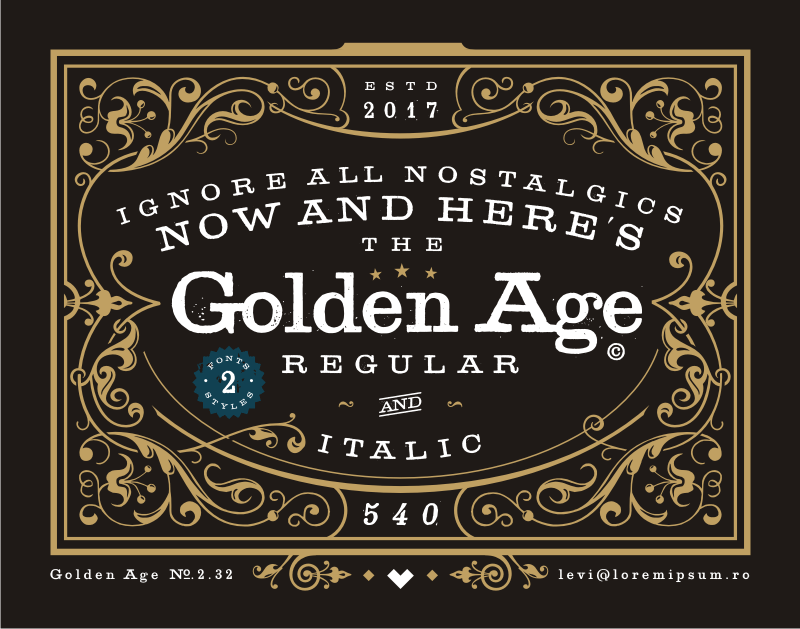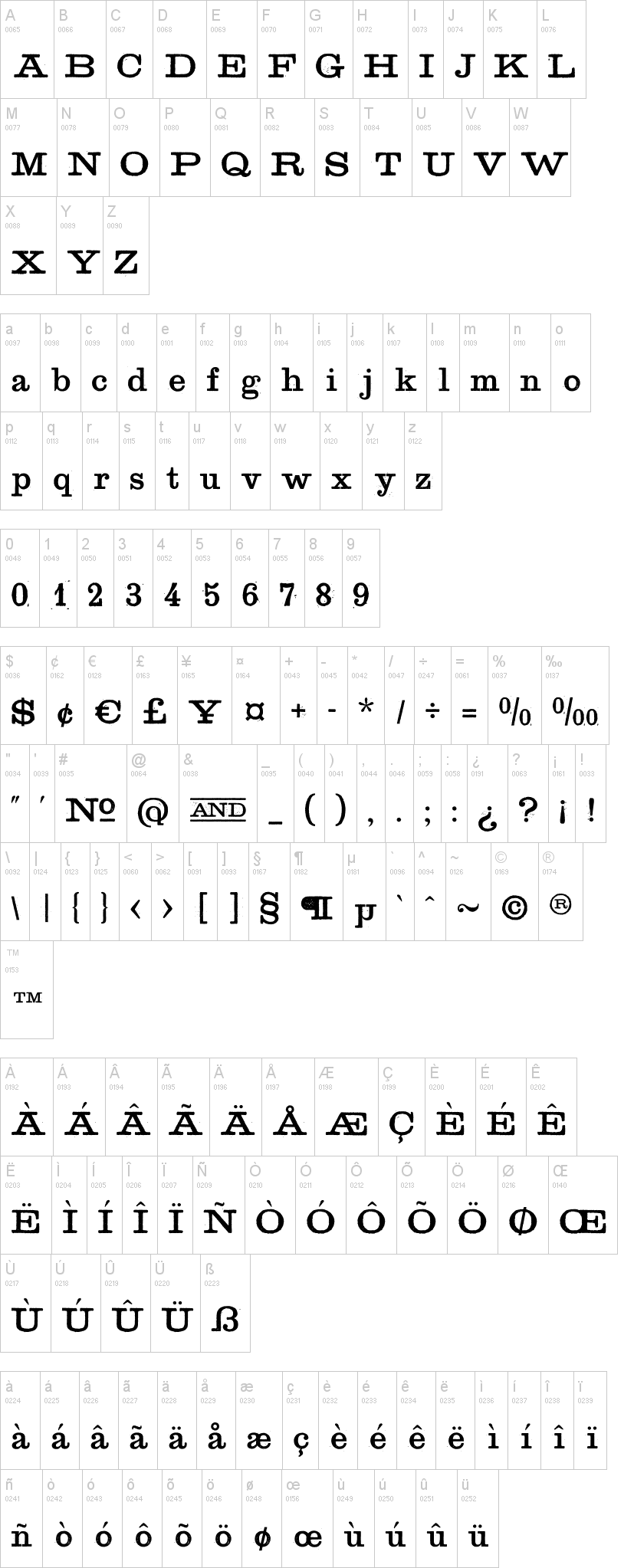
Golden Age Italic.ttfNote of the authorRestoration of an old font from the 30's, with the missing glyphs added using parts/elements from the few existing ones. In respect for the old design I tried not to interfere too much in spacing or shapes, to keep it as genuine as possible. The italic version is made exclusively to allow placing the text diagonally, at 9 degrees. For the hash I used the "Numero" sign and for the ampersand the "AND" catchword, just to add an extra reference to the period. The next step in development will probably be to include more catchwords and specific graphic element/icons. Overall, even with its wide letters and serifs, I'm very pleased with the way this font acts on curves, it's almost like it's made for circles/stamps.